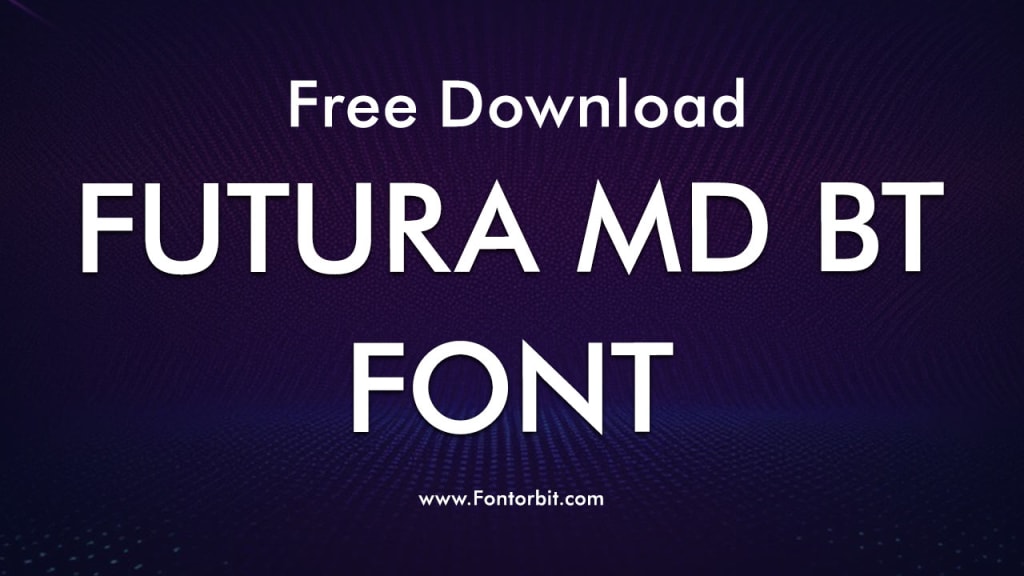
Futura MD BT Font: A Timeless Typeface for Modern Designs
Futura MD BT Font
Typography plays an integral role in design, shaping how information is perceived and consumed. Among the many fonts that have withstood the test of time, Futura MD BT has emerged as a favorite among designers and creatives.
Known for its geometric precision and clean lines, this font bridges the gap between classic design principles and contemporary aesthetics.
Overview of Futura MD BT Font
Futura MD BT is a variant of the classic Futura typeface, which was originally designed by Paul Renner in 1927. This font maintains the essence of its predecessor with a modern twist, offering a versatile option for both digital and print media.
The "BT" in its name stands for Bitstream, a well-known digital font foundry that adapted the original Futura typeface for modern use.
Key Features of Futura MD BT
Geometric Simplicity:
Futura MD BT follows a geometric design approach. Its letters are constructed using simple shapes like circles, squares, and triangles, ensuring a balanced and harmonious appearance.
Modern Elegance:
With its clean lines and uncluttered design, Futura MD BT exudes a sense of modernity while retaining a timeless charm.
Versatility:
This font is suitable for a variety of applications, including headlines, body text, branding, and digital interfaces.
Readability:
Despite its artistic appeal, Futura MD BT maintains excellent legibility, making it ideal for both large displays and smaller text sizes.
Wide Range of Weights:
The font family includes multiple weights such as Light, Book, Medium, Bold, and Extra Bold, allowing designers to experiment with visual hierarchy and emphasis.
Applications of Futura MD BT
Branding and Logo Design:
Futura MD BT’s modern yet classic look makes it a popular choice for branding. Its clean geometry lends itself well to logos that need to communicate professionalism and sophistication.
Editorial and Print Media:
The font’s legibility and elegance make it a staple in magazine layouts, brochures, and posters.
Web Design:
With its adaptability to various screen resolutions, Futura MD BT is frequently used in website headers and body text, ensuring a seamless user experience.
Advertising:
The font’s ability to capture attention without overwhelming the design makes it an excellent choice for advertisements.
Tips for Using Futura MD BT Effectively
Pairing with Other Fonts:
To achieve a balanced design, pair Futura MD BT with complementary fonts. Serif fonts like Garamond or slab-serif fonts like Rockwell can create a striking contrast.
Using Negative Space:
Futura MD BT’s clean lines can be enhanced by strategic use of white space, allowing the typography to stand out.
Choosing the Right Weight:
For headlines, opt for Bold or Extra Bold. For body text, Light or Book weights work best.
Color Considerations:
Experiment with contrasting colors to emphasize the font’s geometric clarity, especially in branding and digital interfaces.
Conclusion
Futura MD BT stands as a testament to the enduring appeal of geometric typography. Its versatility, readability, and timeless design make it a go-to choice for designers across industries.
Whether you’re working on a modern website, a corporate brand identity, or a print publication, Futura MD BT offers the perfect blend of functionality and aesthetics. By incorporating this font into your designs, you can create a visual language that resonates with both tradition and innovation.
FAQs About Futura MD BT Font
1. What is the origin of Futura MD BT?
Futura MD BT is a digital adaptation of the original Futura typeface, which was designed by Paul Renner in 1927. The "BT" stands for Bitstream, the foundry responsible for this version.
2. What makes Futura MD BT different from the original Futura?
While maintaining the core geometric design of Futura, Futura MD BT has been optimized for digital use, offering improved readability and a wider range of weights.
3. Is Futura MD BT suitable for body text?
Yes, Futura MD BT is highly readable and works well for body text, especially when using lighter weights like Light or Book.
4. What are the best uses for Futura MD BT?
The font is ideal for branding, editorial design, web interfaces, and advertising due to its versatility and modern aesthetics.
6. How does Futura MD BT pair with other fonts?
Futura MD BT pairs well with serif fonts like Garamond for a classic-modern contrast or with other sans-serif fonts like Helvetica for a cohesive look.